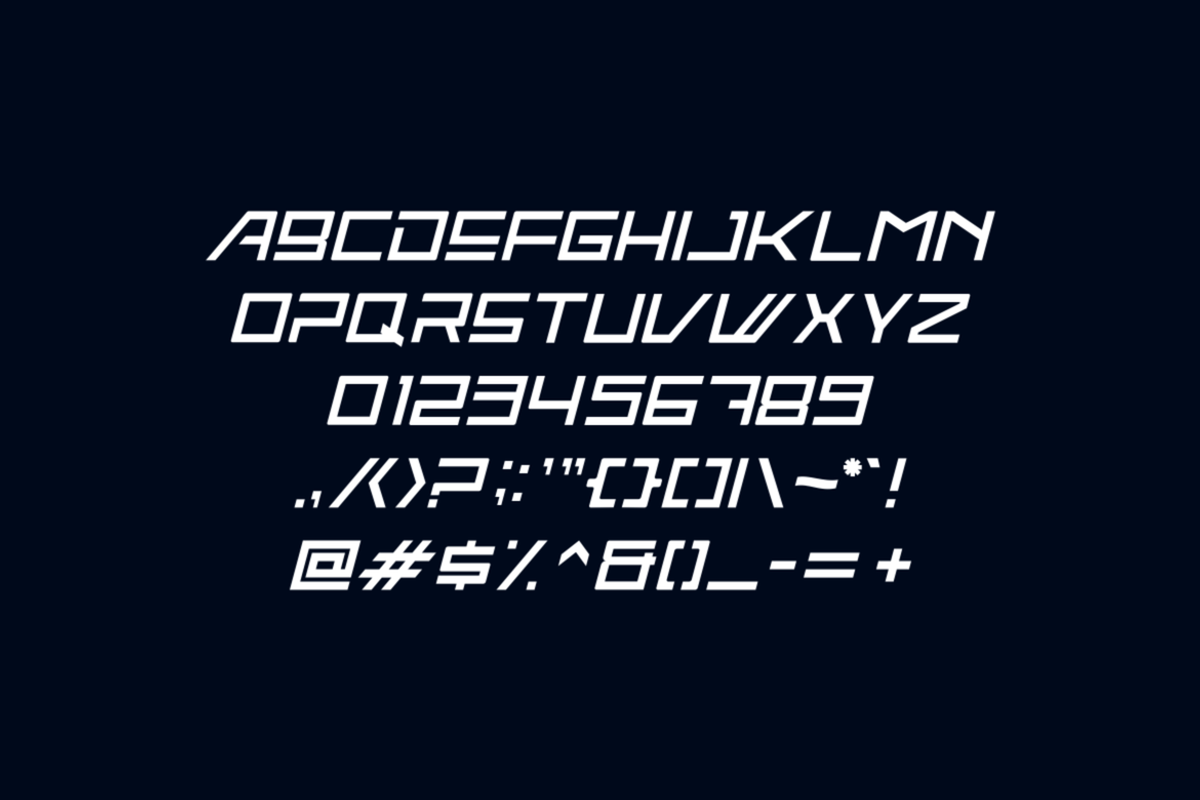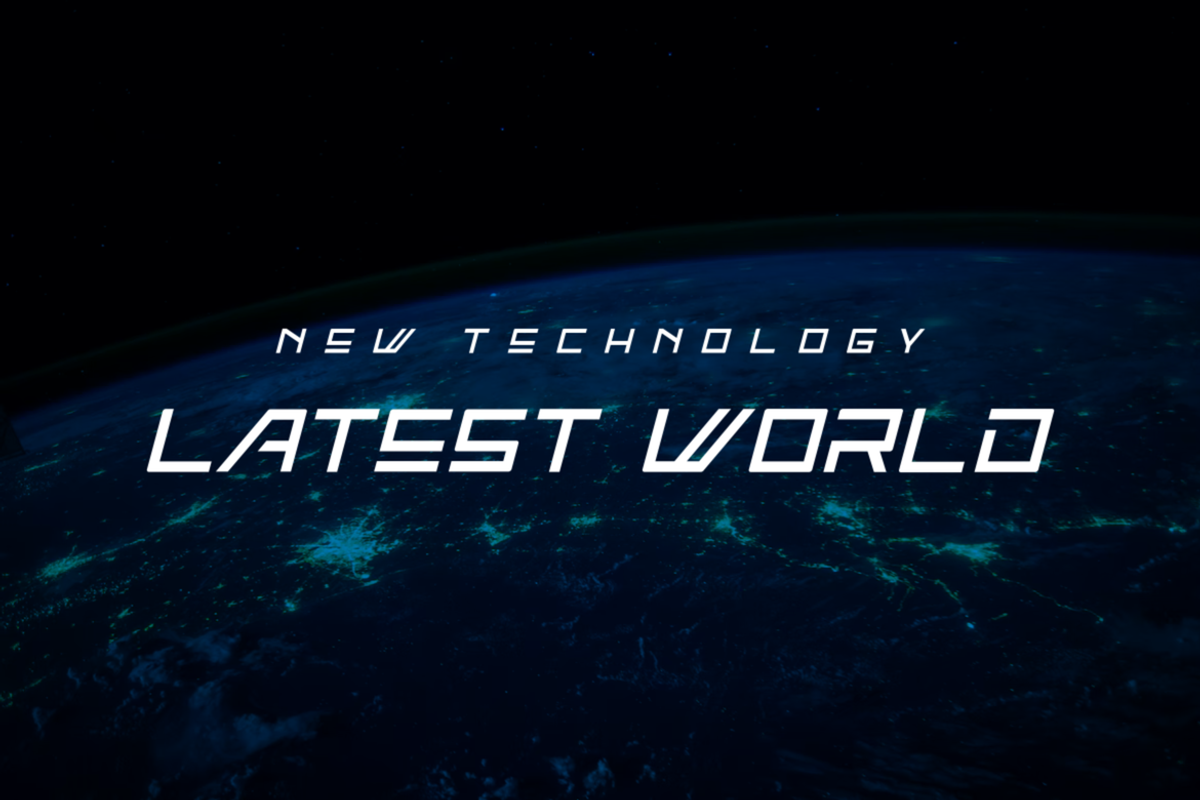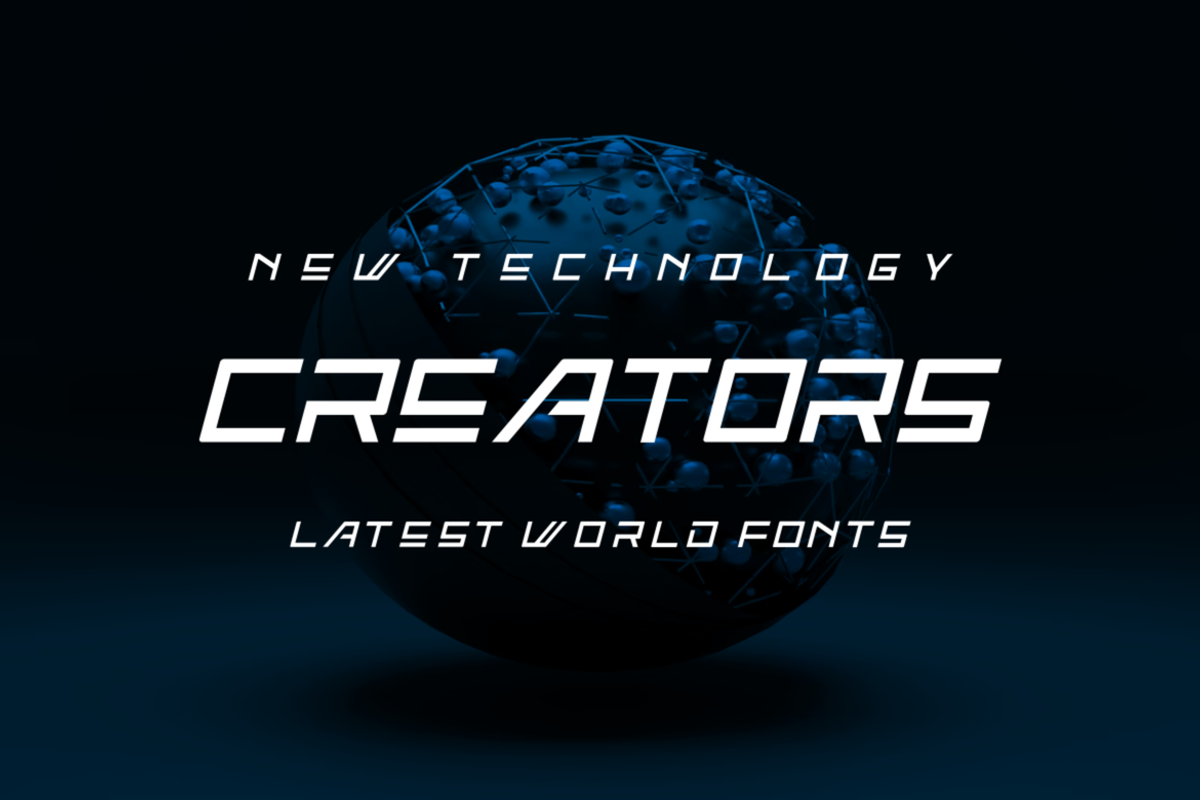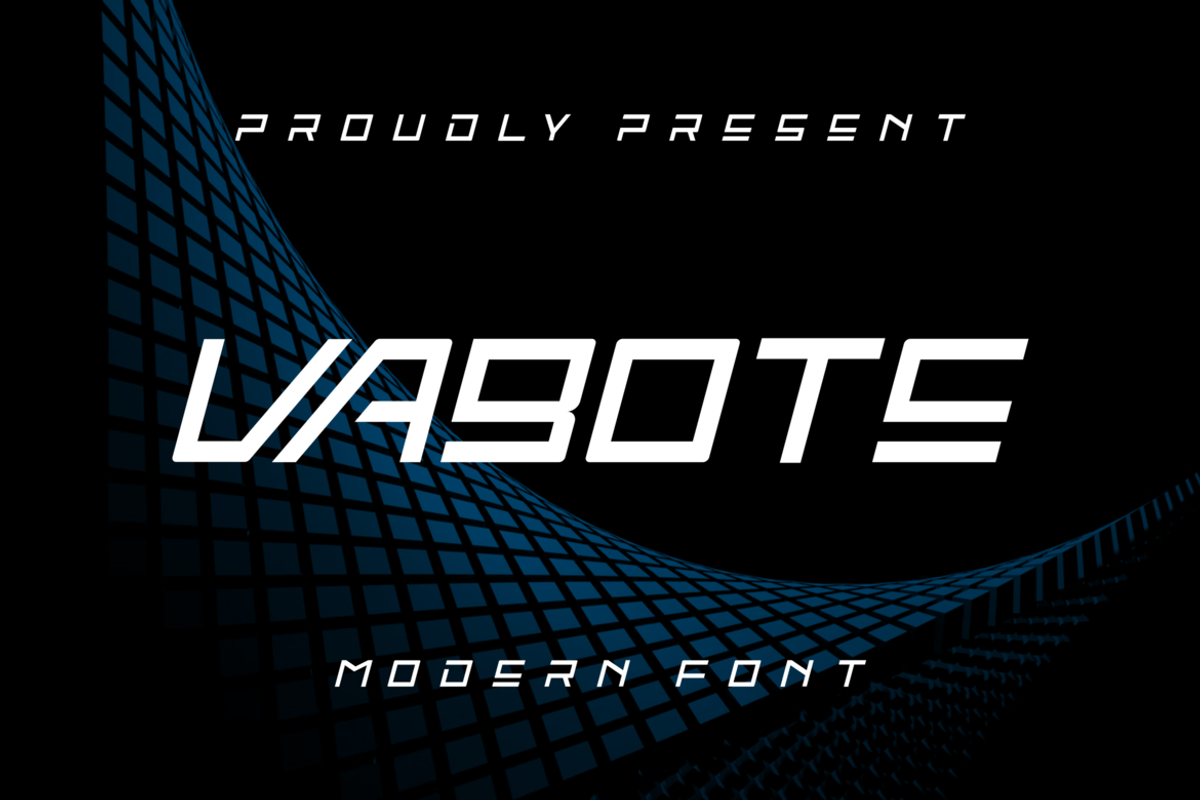
Vabote
Introducing our new product Vabote Font - Modern Font
Vabote Font - Modern Font is a bold and authentic display font. The font is suitable for any branding project like logo, t-shirt printing, esport, and many more. outstanding in a wide range of contexts.